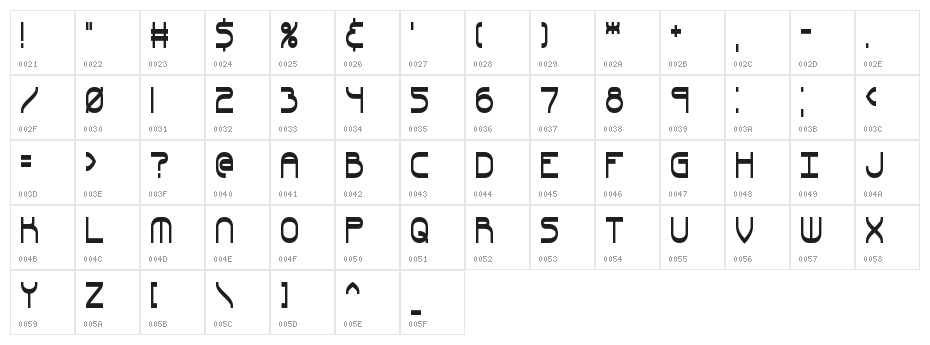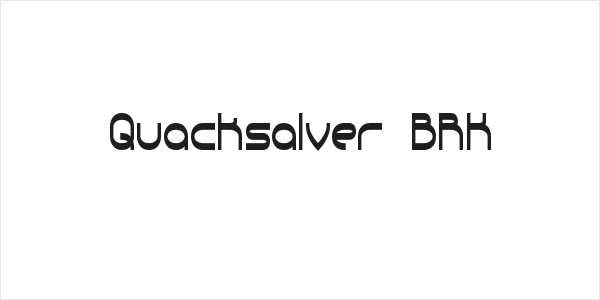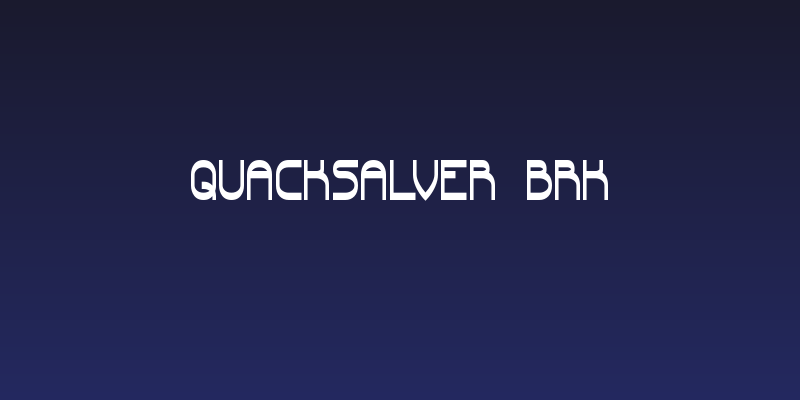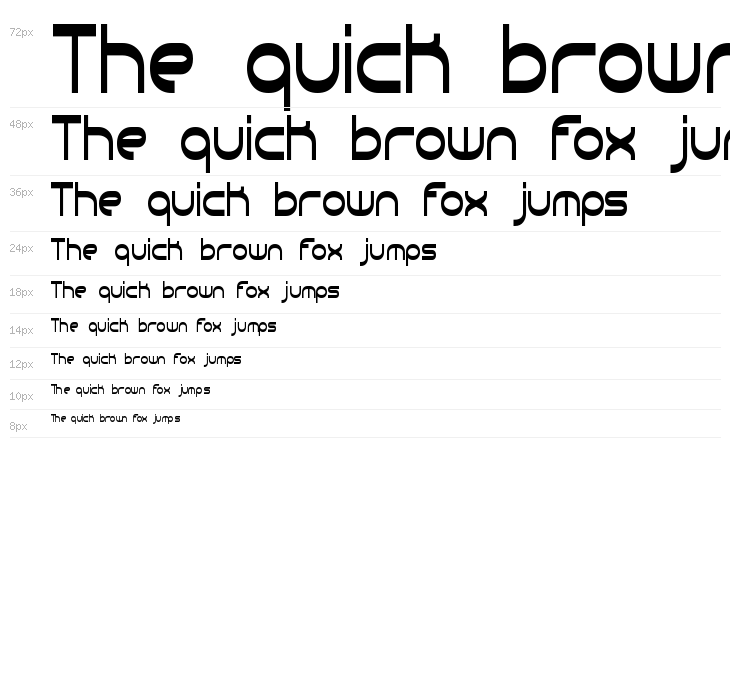
Quacksalver BRK Font
Quacksalver BRK Description
This font features a bold and modern design with a geometric structure. The characters are rounded with a consistent stroke width, giving it a futuristic and clean appearance. The uppercase letters are slightly taller than the lowercase, maintaining a uniform width throughout. The numbers and special characters follow the same design principles, ensuring a cohesive look. Its distinct style makes it suitable for attention-grabbing headlines and modern branding projects.
| Proposed Projects | Ideal for modern branding, tech-related projects, and futuristic design themes. |